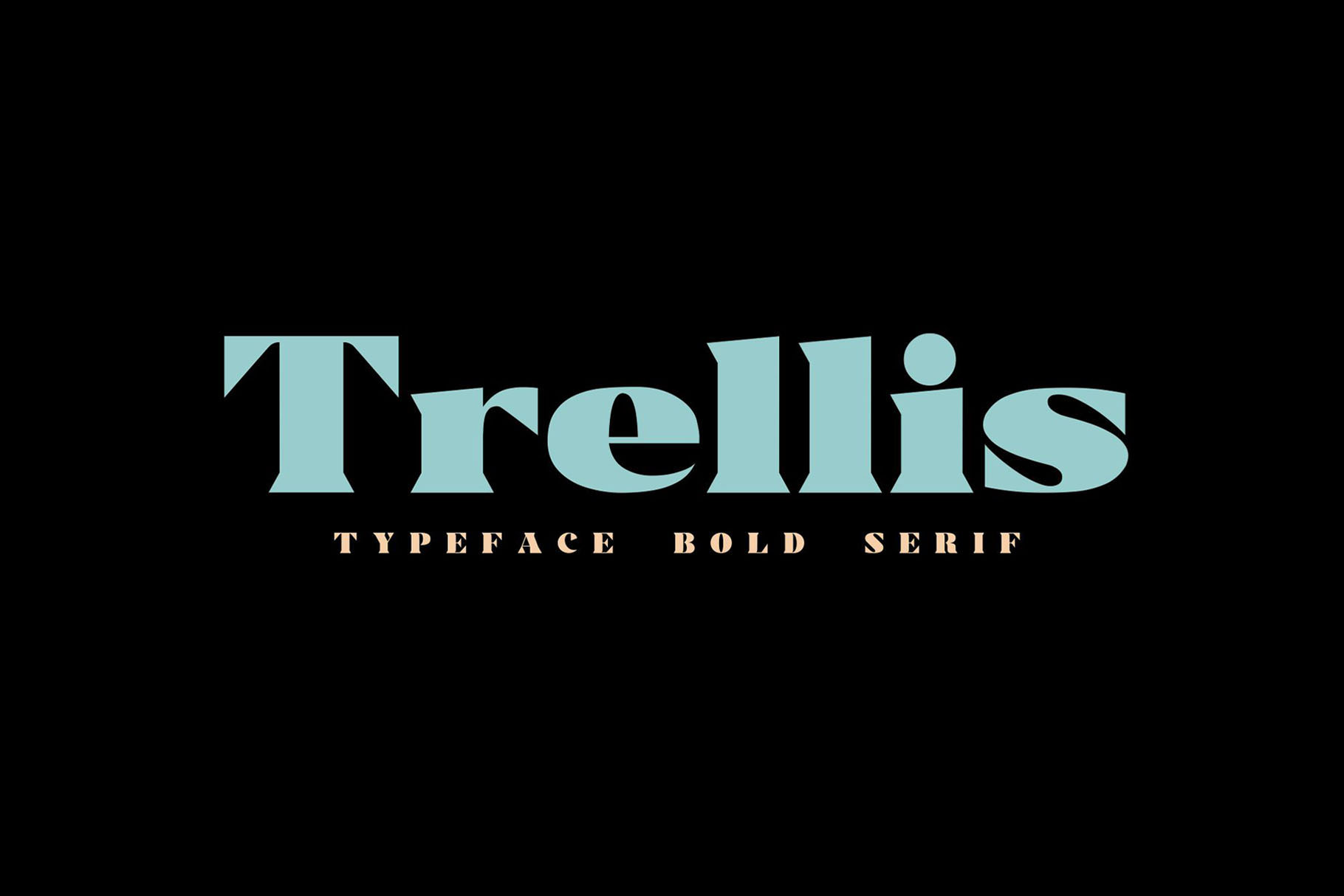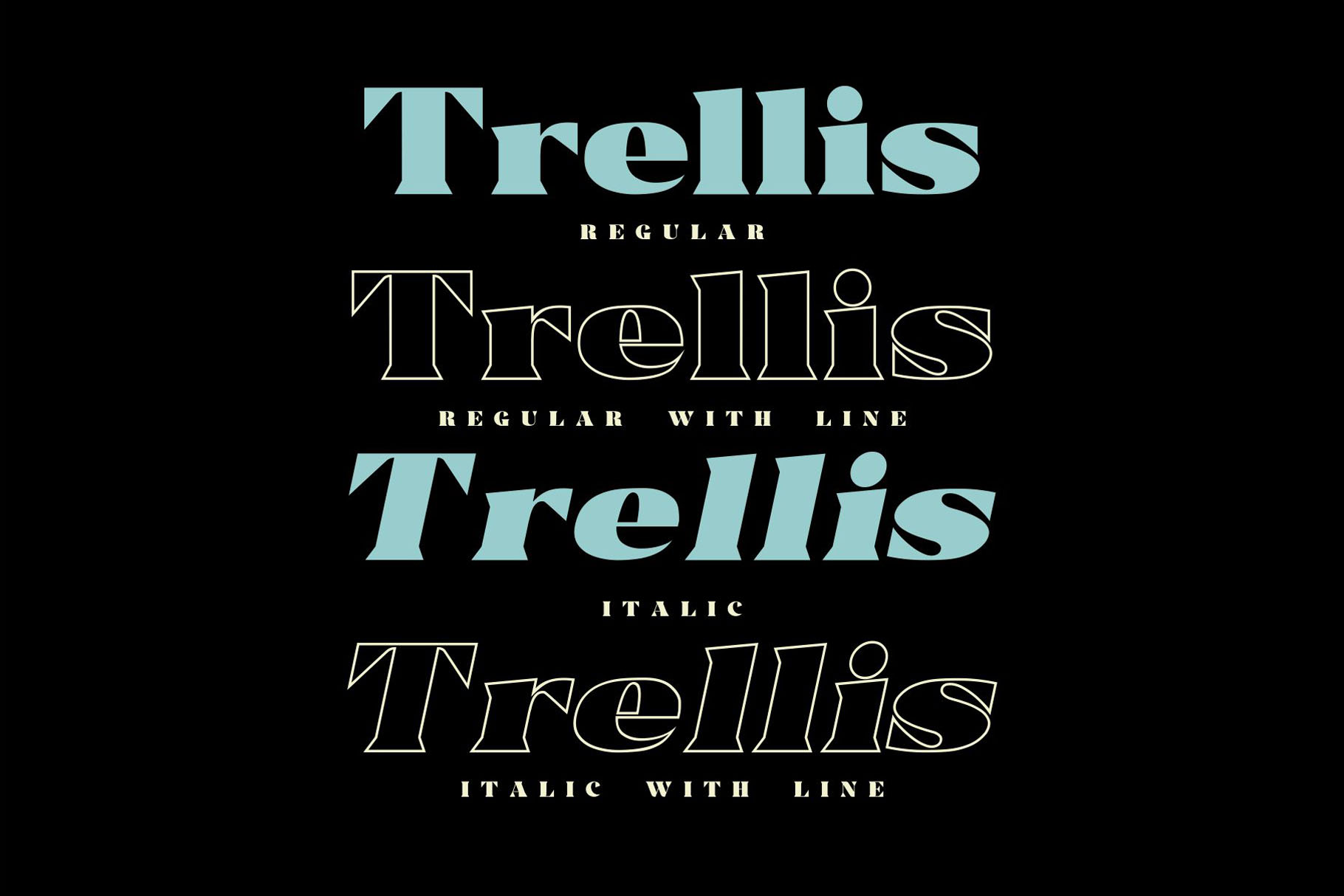
Trellis Font
Trellis Serif Font
This is a wedge serif font that is sure to stand out! A little bit retro and a bit modern, Trellisis great for logos, editorial or web design. The unique sharp serifs mixed with thin strokes give off a bold mid century architectural vibe.
Introducing Trellis Typeface Bold Serif
Trellis//Typeface Bold Serif is a wedge serif font that is sure to stand out! A little bit retro and a bit modern, Trellisis great for logos, editorial or web design. The unique sharp serifs mixed with thin strokes give off a bold mid century architectural vibe.
• Standard Ligatures
• Stylistic Set
• Numerals and Punctuation